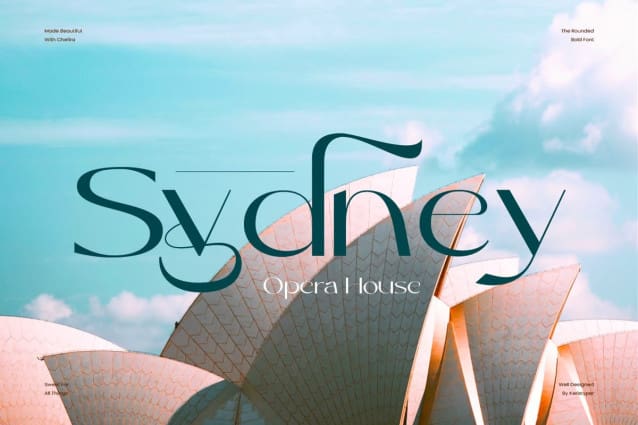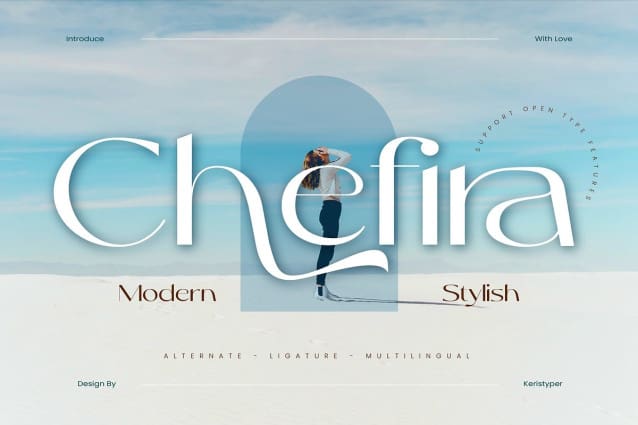
Chefira Font
Chefira Font is an elegant and timeless font crafted to elevate any design, making it ideal for a wide range of creative and professional projects. Discover our Font Collection, a versatile set of beautifully crafted typefaces designed to add personality and style to your projects. Whether you’re working on branding, social media graphics, packaging, invitations, or web design, this collection offers fonts that fit seamlessly into any aesthetic.